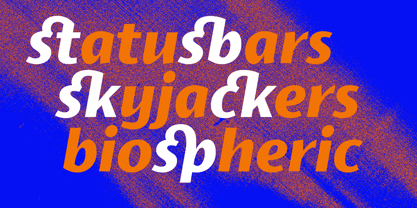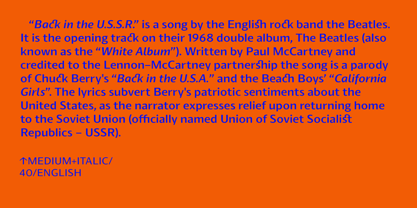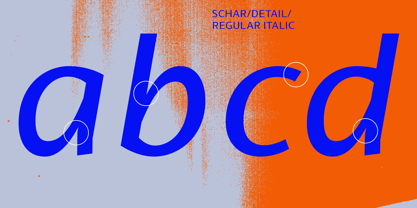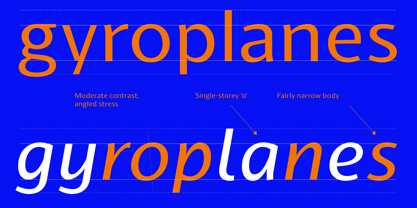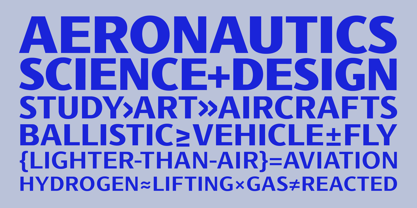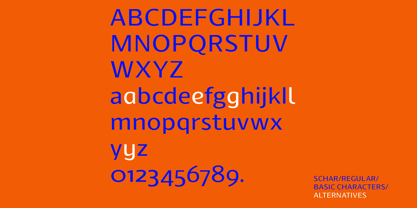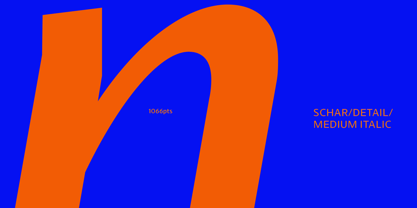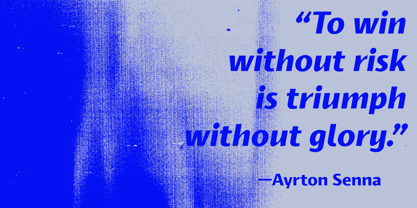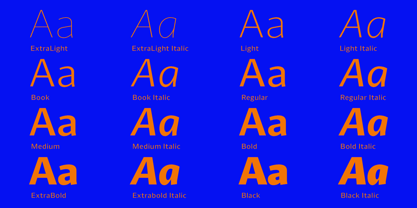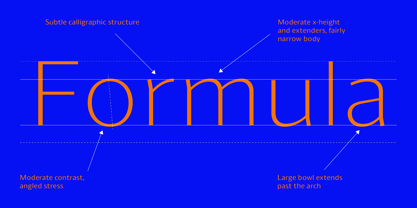
Schar™
by The Northern Block
The Schar Font Family was designed by Jonathan Hill and published by The Northern Block. Schar contains 20 styles and family package options. More about this family
Schar 2.0 is a humanist sans serif designed with the balance and rhythm of a serif, but stripped back for a modern, versatile feel. Its angled axis and refined curves give the typeface a fluid, dynamic personality, while improved spacing and clarity make it easy to read in both print and digital settings. Built for professional use, it works equally well in branding, editorial design, and interface projects where legibility and distinction matter. The family includes eight weights with true italics and over 1,000 characters. Practical details include alternative letters for a, e, g, y, and l, thirteen number styles from tabular to circled, true small caps with accents, ligatures, and an extensive set of OpenType features. Designed to handle complex typographic needs straight out of the box, Schar 2.0 offers both clarity and character in equal measure.
Designers: Jonathan Hill
Foundry: The Northern Block